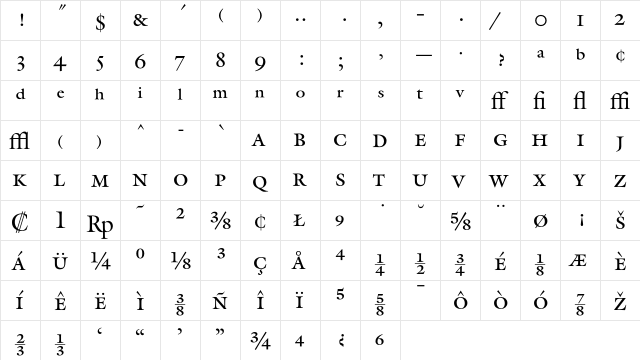
GalliardExpCC Regular
Design Context for GalliardExpCC Typeface
GalliardExpCC offers clean, dependable letterforms without strong stylistic allegiance, making it a practical choice for designers who need flexibility.